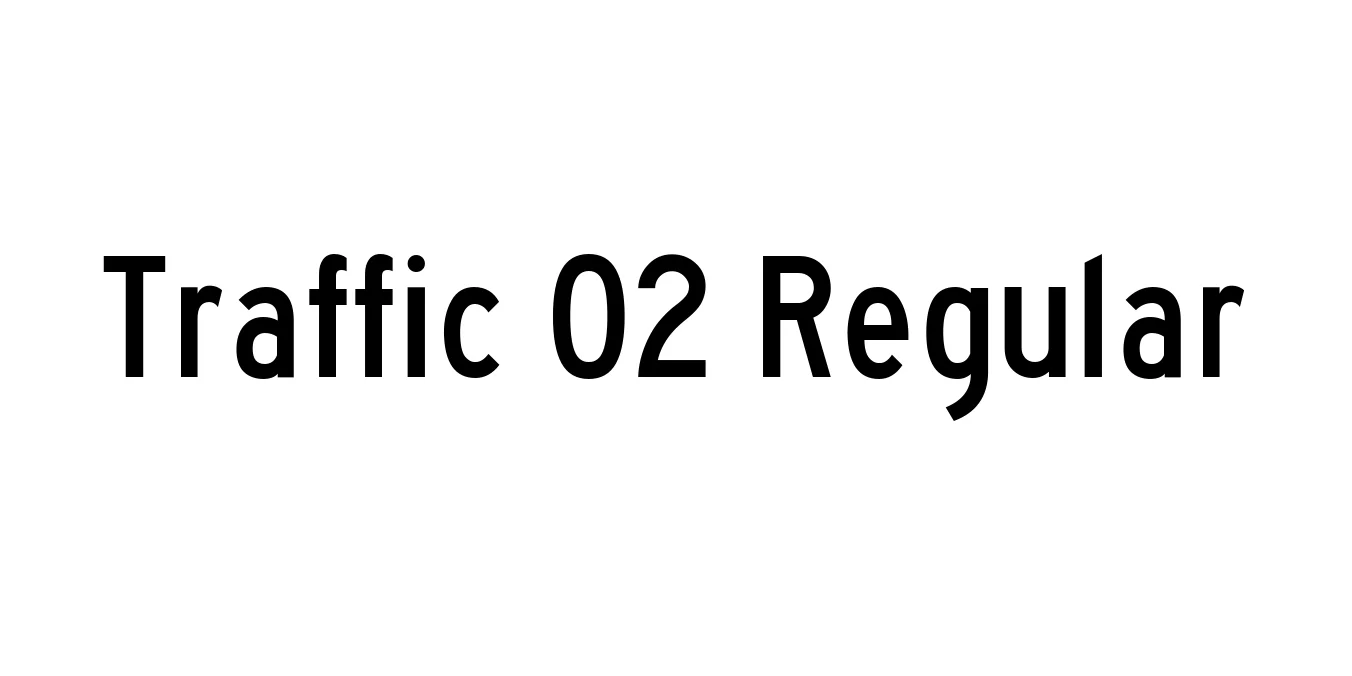
Traffic 02 Regular
Designed by Homa Design
Traffic 02 Regular is a prominent typeface within the Persian typography landscape, often recognized for its clean lines and high readability. Developed as an evolution of the original Traffic typeface, this version was designed to offer a more balanced and modern aesthetic suitable for both digital and print media. Its origins are closely tied to the need for legible signage and instructional text, making it a staple for graphic designers working on public information projects.
The font features a geometric structure with subtle humanist influences, which helps it maintain a professional yet approachable feel. Over the years, Traffic 02 Regular has become a favorite for web developers and UI/UX designers who require a font that performs well at various scales. Its versatility allows it to function effectively in headlines, body text, and complex interface designs, ensuring clear communication across diverse platforms.
Traffic 02 Regular Best Uses
Ideal for mobile apps and web dashboards due to its clarity.
Perfect for public notices and directional signs.
Works well for clean, modern magazine layouts and body copy.
Great for professional branding and official documents.